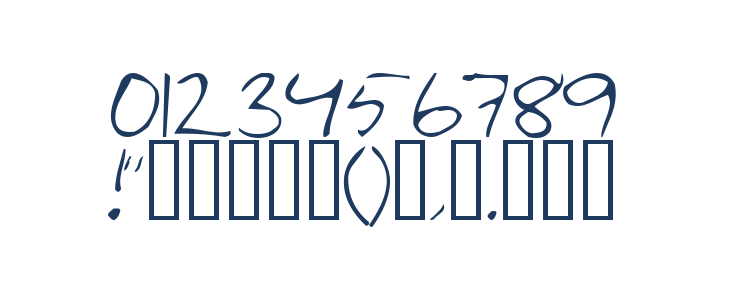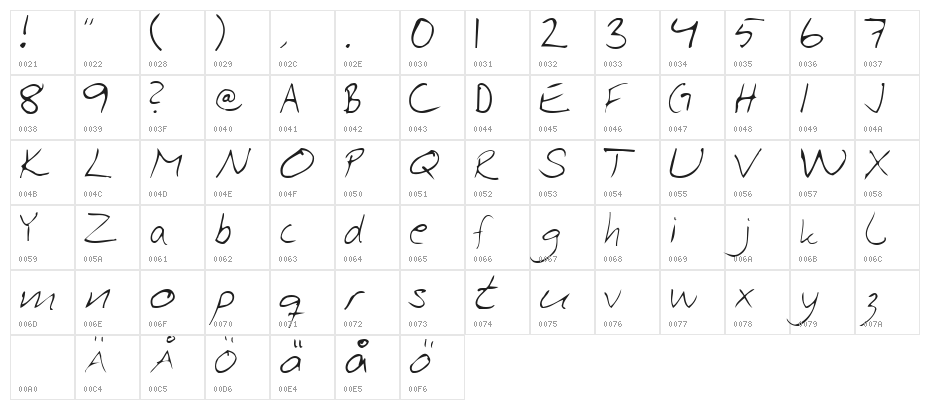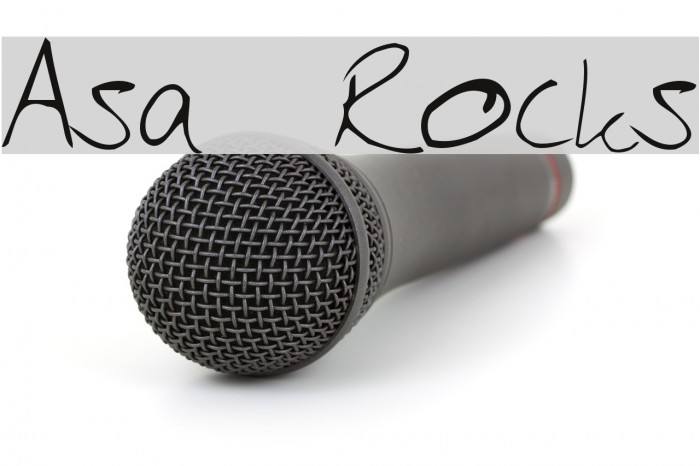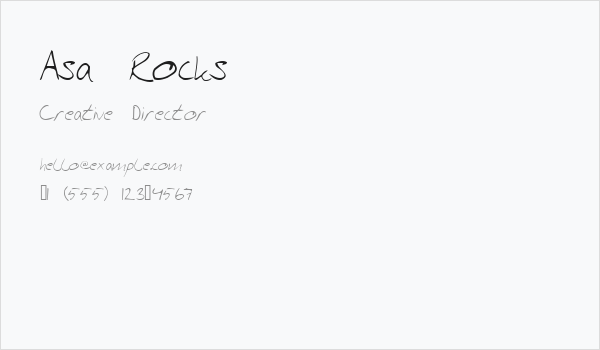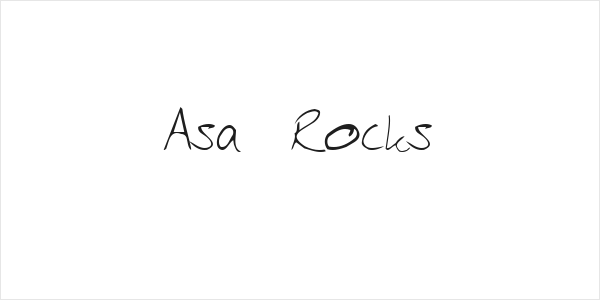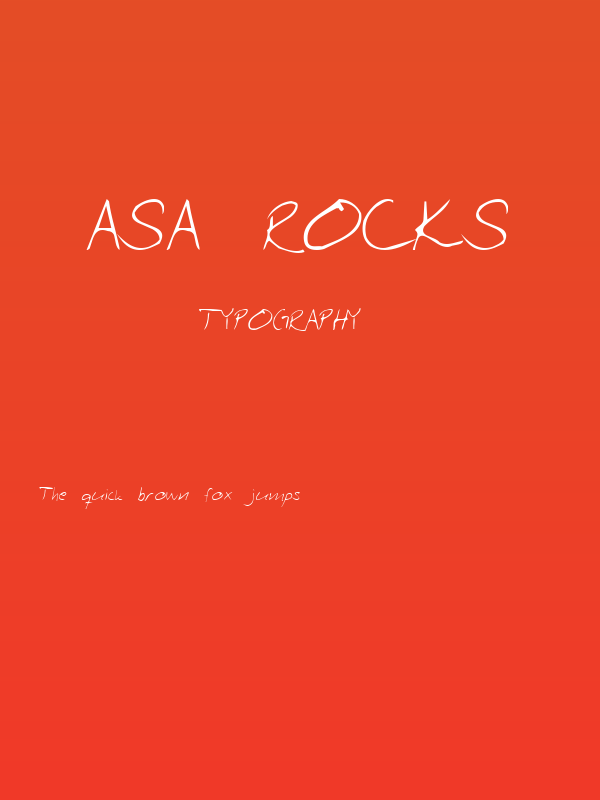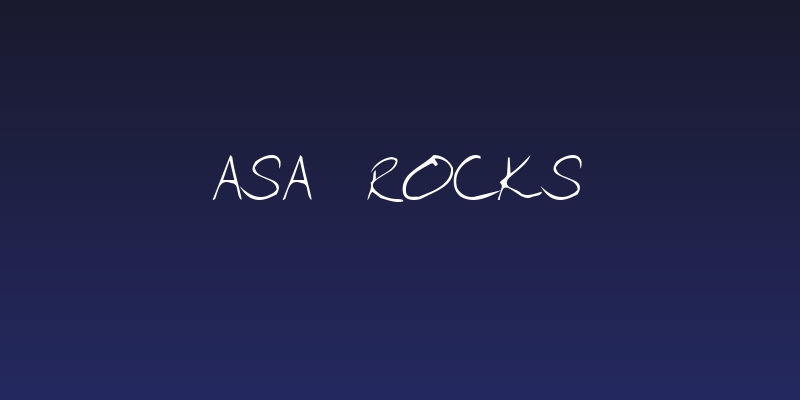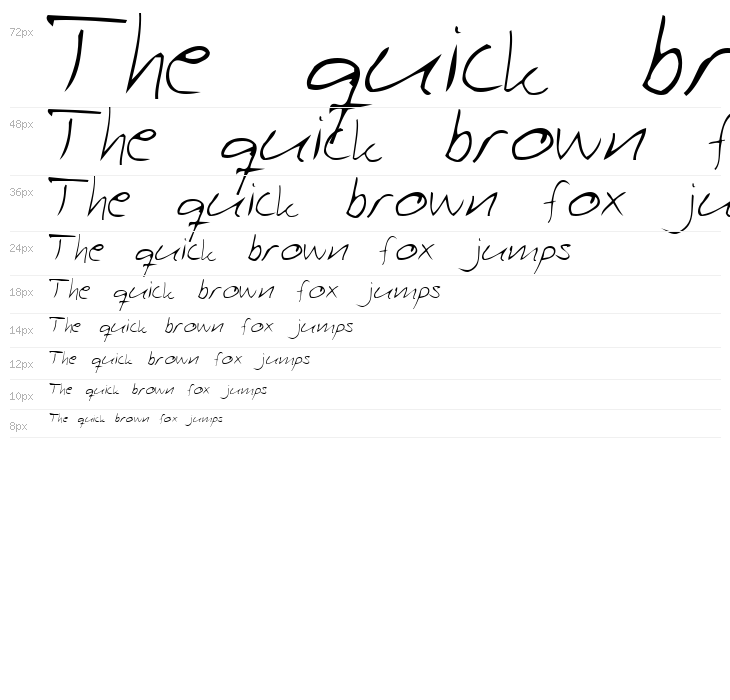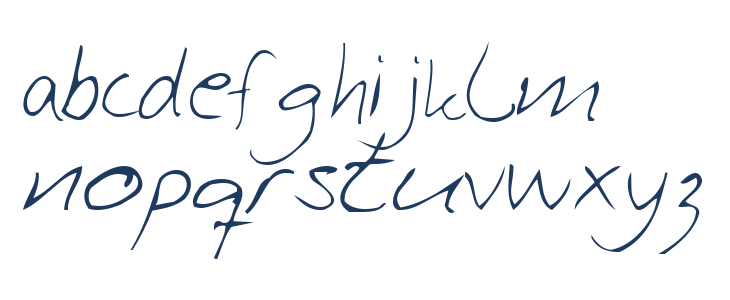
Asa Rocks Font
This font features a dynamic and expressive handwritten style, characterized by its fluid and irregular strokes. The uppercase letters exhibit a playful and energetic form, with varying heights and angles that add a sense of movement. The lowercase letters maintain a consistent flow, with smooth curves and occasional sharp edges that enhance its casual aesthetic. The numerals are bold and slightly exaggerated, ensuring readability while maintaining the overall artistic flair. Special characters are integrated seamlessly, complementing the font's lively and spontaneous appearance. This font is ideal for projects that require a personal touch, conveying creativity and individuality.
Proposed ProjectsPerfect for greeting cards, invitations, artistic posters, and branding that requires a personal, creative touch.